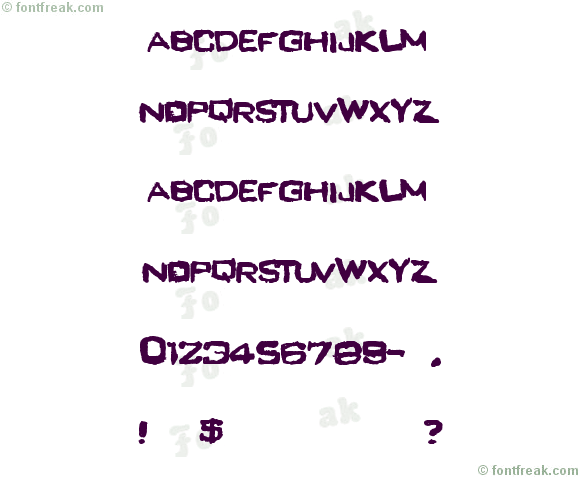
GraveDanger
About GraveDanger
GraveDanger, crafted by XEROGRAPHER FONTS in 2015, is a unique decorative typeface that stands out for its striking and edgy aesthetic. This font belongs to the display category, making it ideal for projects that require attention-grabbing typography. With its bold, irregular stroke weight and a playful yet gritty character, GraveDanger exudes a sense of rebellious charm. The contrast in weight adds depth, while the uneven spacing gives it an organic, hand-drawn feel that enhances its artistic allure.
GraveDanger is particularly well-suited for a variety of creative applications. It shines in movie posters, especially for genres like horror or thriller, where its distinct style can set the tone for the visual narrative. Additionally, this font is perfect for band logos and album covers, as its unique look resonates with music enthusiasts seeking something unconventional. It can also be effectively used in t-shirt designs, giving a bold statement piece that stands out in any wardrobe. For graphic designers working on promotional materials or event flyers, GraveDanger adds a touch of excitement that captures the audience's attention.
The target audience for this font includes graphic designers, small business owners, and content creators looking to infuse personality into their projects. Whether you’re creating a brand identity or simply experimenting with typography, GraveDanger offers a versatile option that can elevate your designs.
What truly sets the GraveDanger font free download apart is its ability to blend creativity with a sense of attitude. Its distinctive style not only communicates a message but also evokes emotion, making it a compelling choice for anyone looking to make a memorable impact with their visual content.